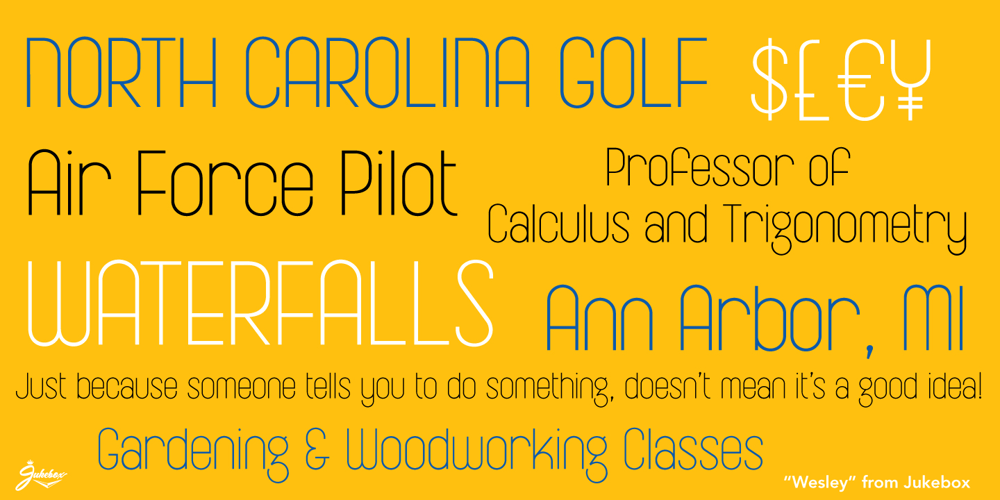
Wesley JF
Wesley JF font
Wesley JF Font Family was designed by Jason Anthony Walcott and published by Jukebox Collection. Wesley JF contains 1 styles and family package options. Wesley from Jukebox is a geometric sans-serif with a clean and streamlined look. Named after the designer’s paternal grandfather, this font is well suited to any design that needs a sophisticated look. The large x-height helps give the typeface a more approachable feel. The unique lowercase g with its open bowl is a distinctive feature in the font. Jukebox fonts are available in OpenType format and downloadable packages contain both .otf and .ttf versions of the font. They are compatible on both Mac and Windows. All fonts contain basic OpenType features as well as support for Latin-based and most Eastern European languages.